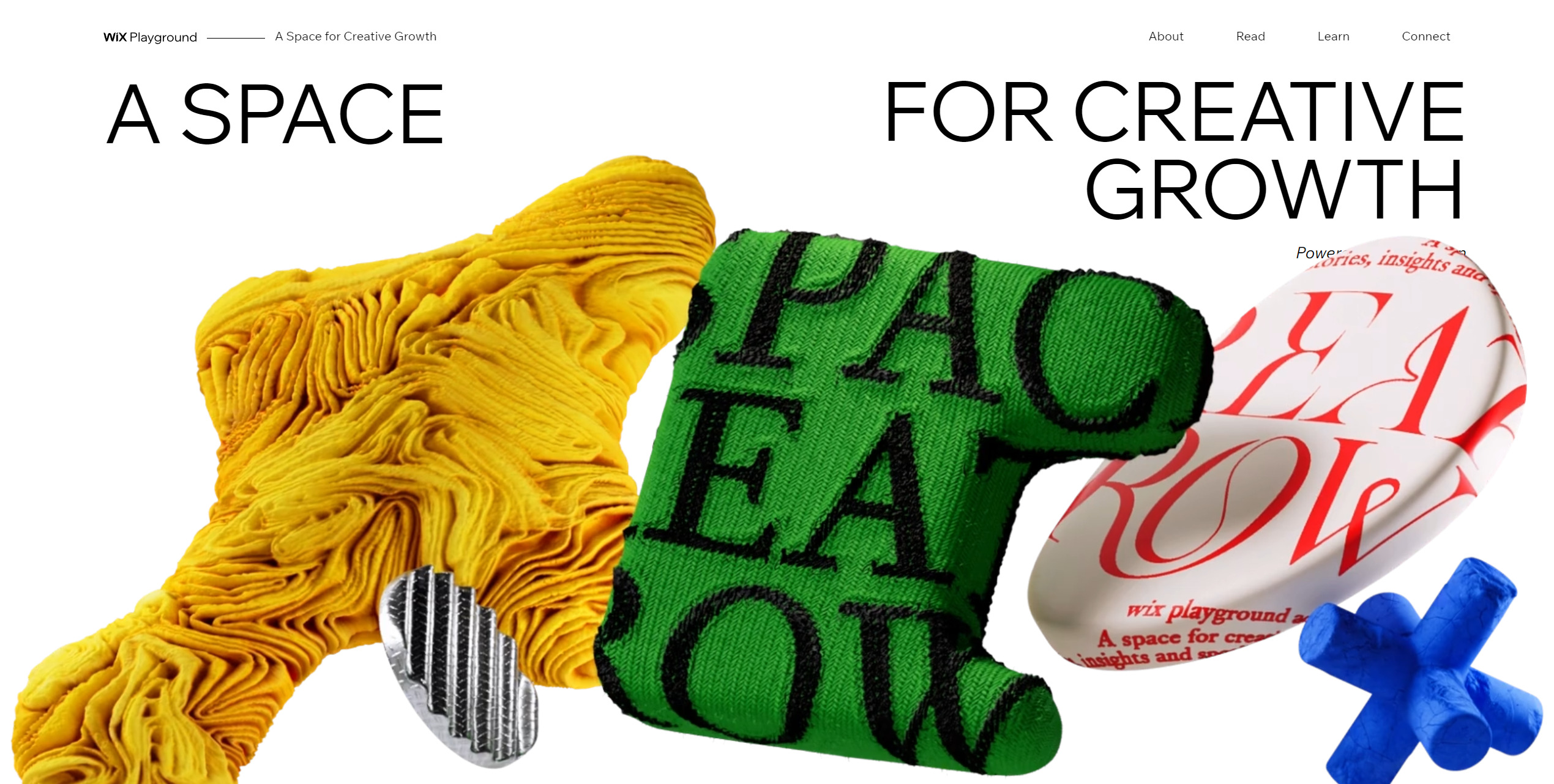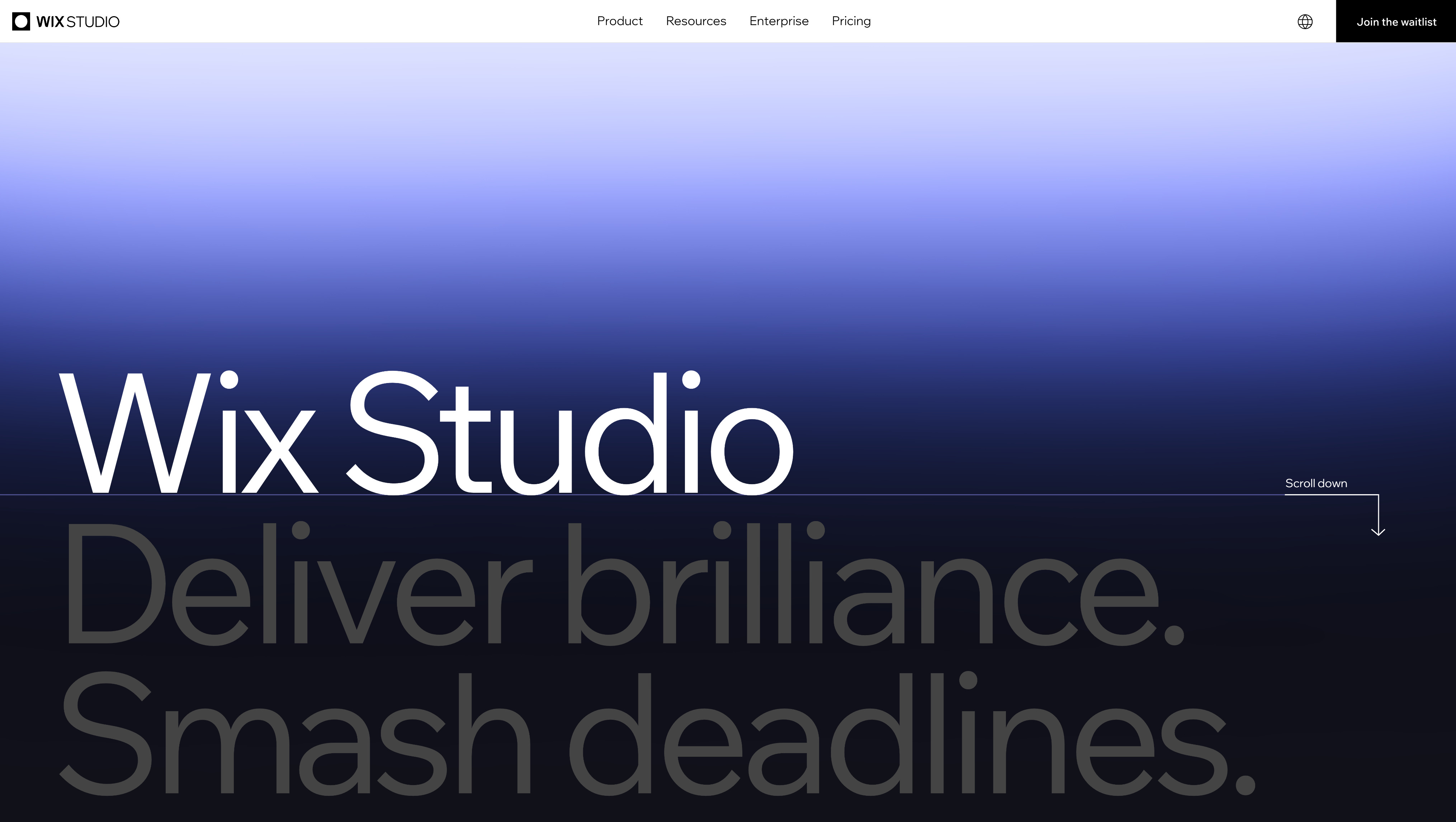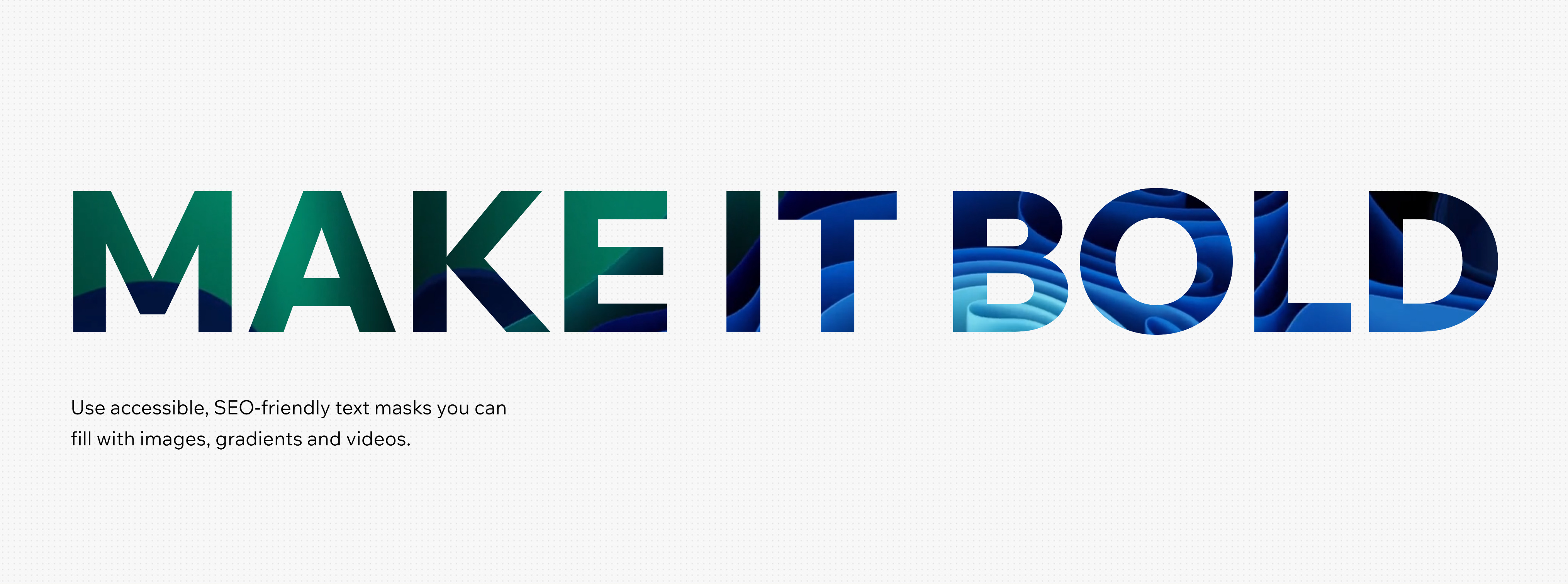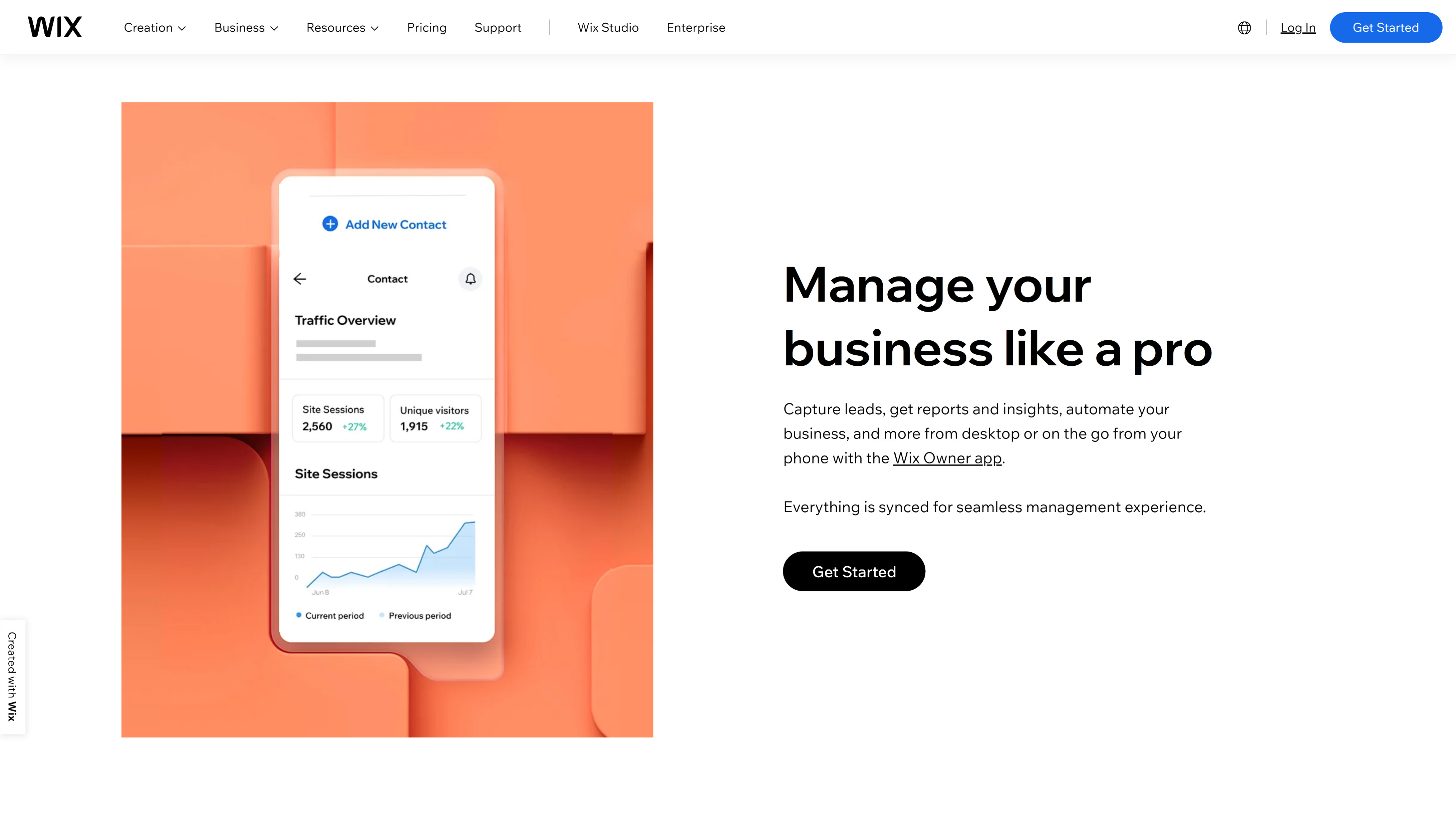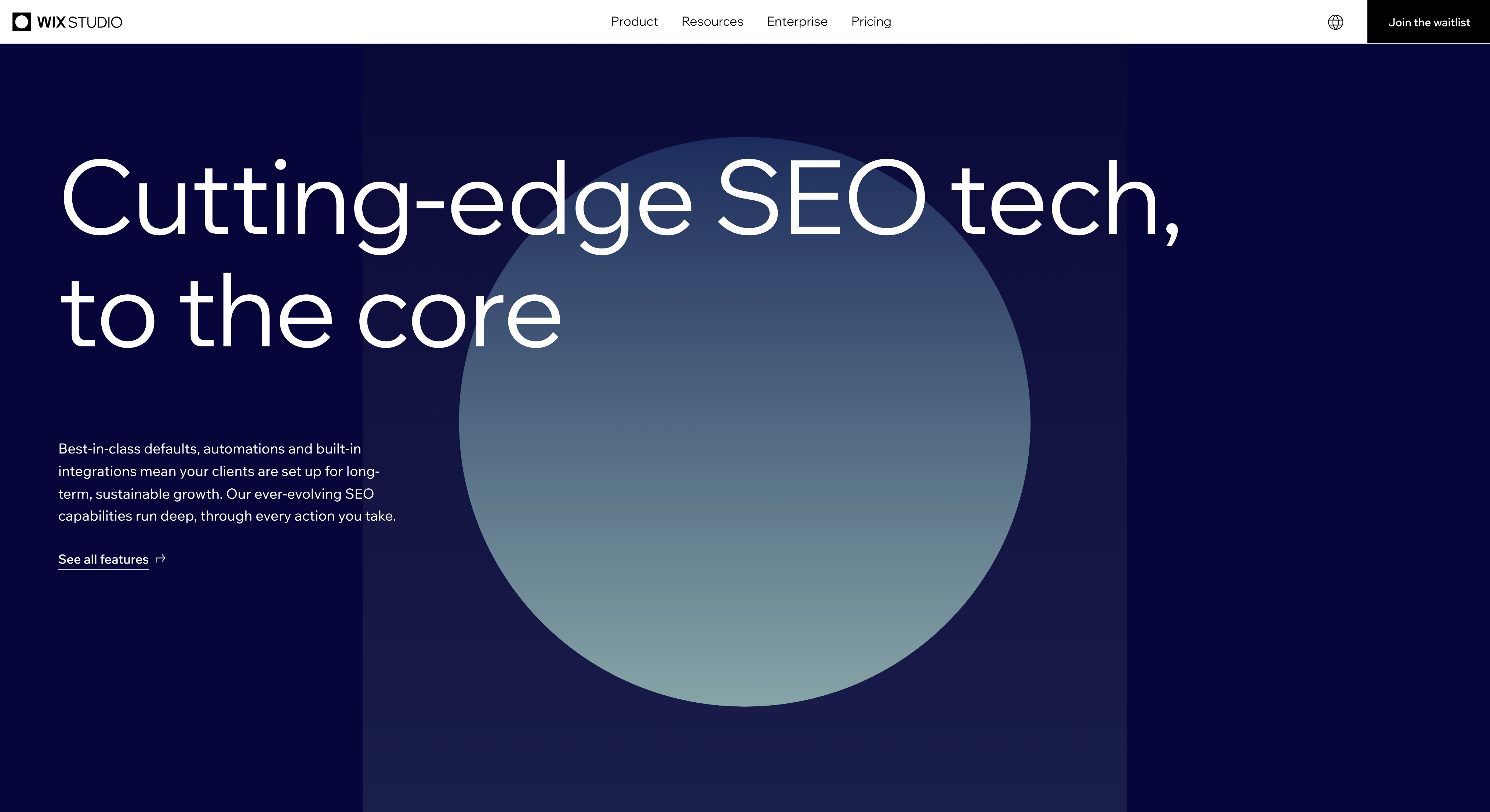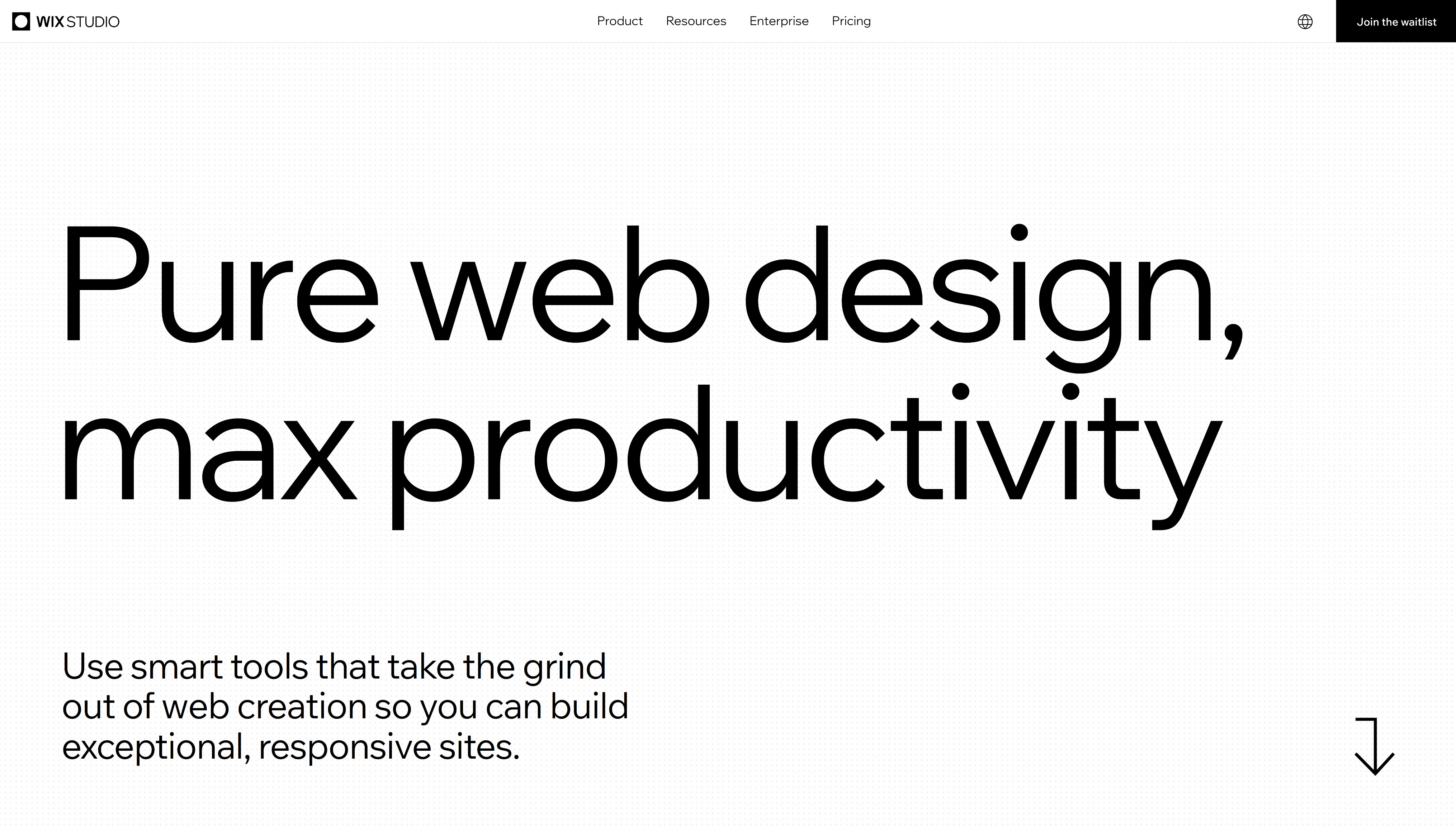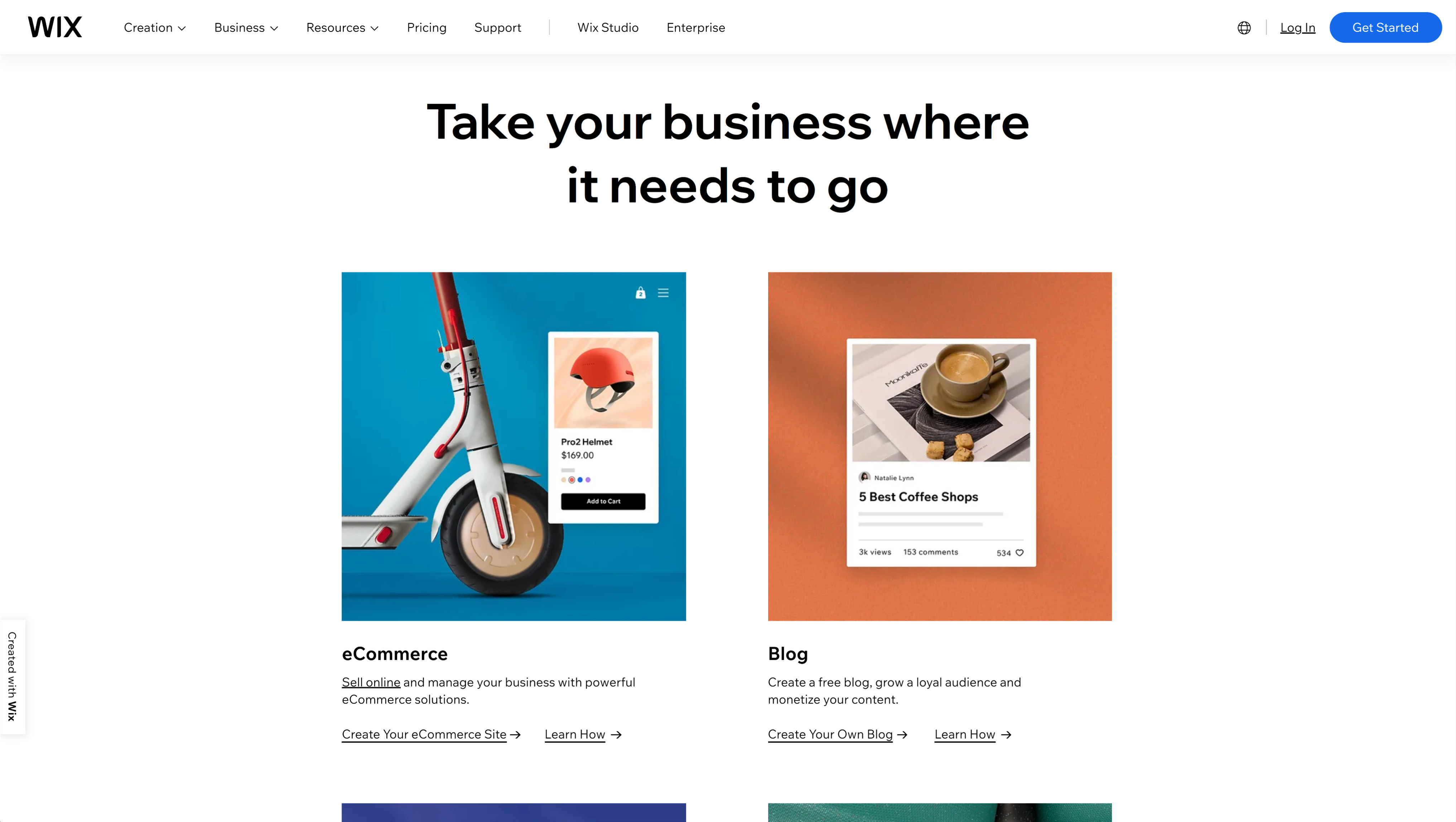
Wix Madefor
A Custom Font Suite for Wix
Wix Madefor Stickers
Specimen of Wix Madefor saying 'E-commerce, Website Builder, User-friendly, Customizable' in different weights
Specimen of Wix Madefor typographic specimen
Hero image of Wix Madefor
Wix Madefor weight range
Promotional image for Wix Madefor typeface
With typography that didn’t align with their brand’s personality, Wix asked us to fuse friendliness and professionalism to embody their ethos and excite their user base. Working closely with the Wix team, we designed a versatile font suite ready for nuanced text and bold display.
Wix Madefor, Custom Font Suite, 2019–2023
Cyrillic, Latin, Latin (Vietnamese Extension)
Over 800 languages
Display
Text
Wix Madefor font styles showcase card
Wix Madefor Writing Systems